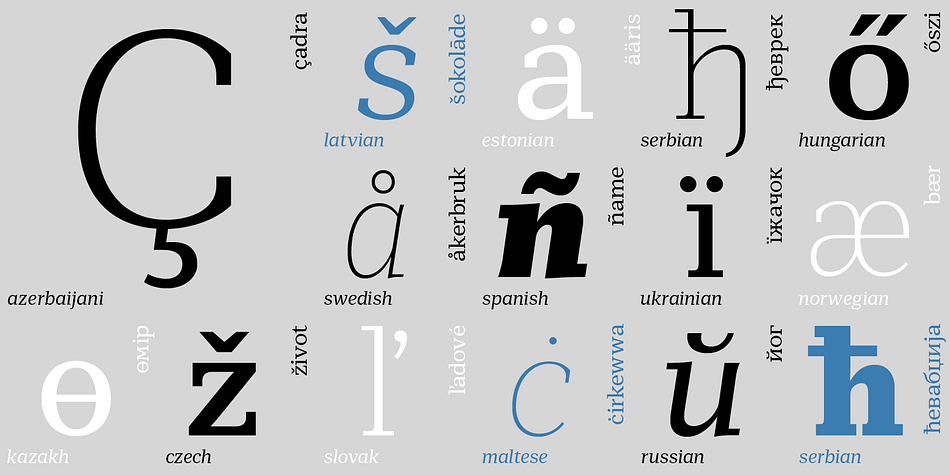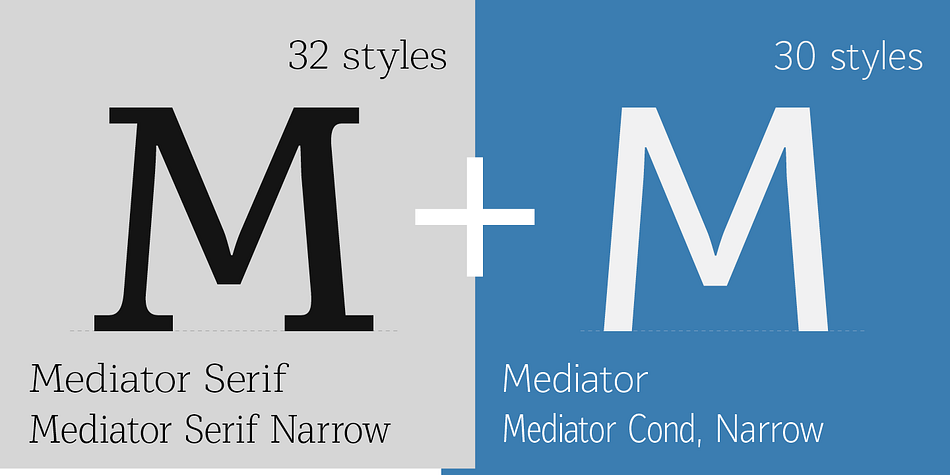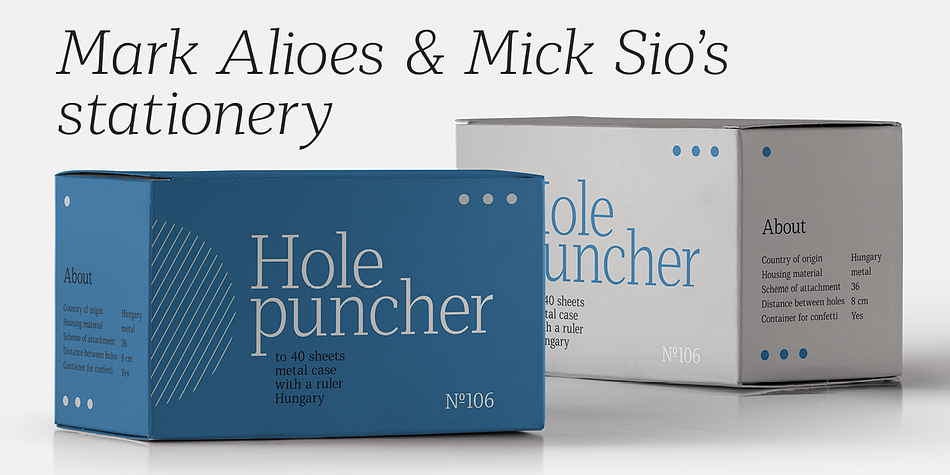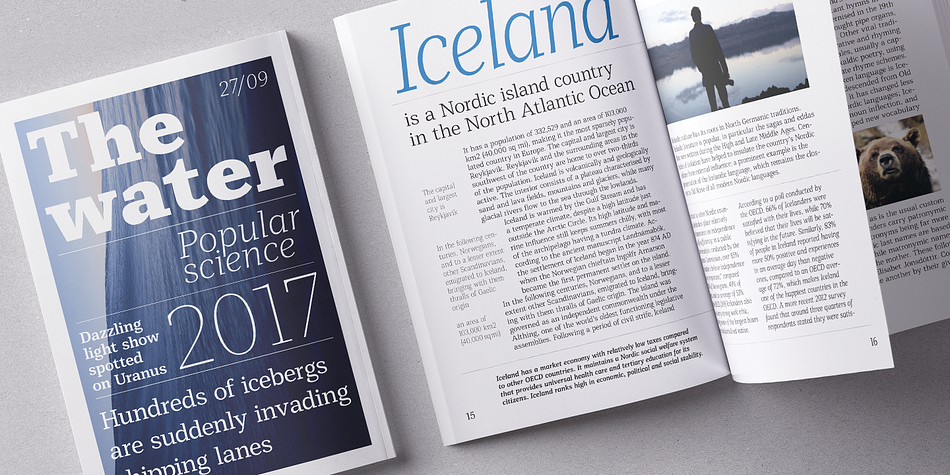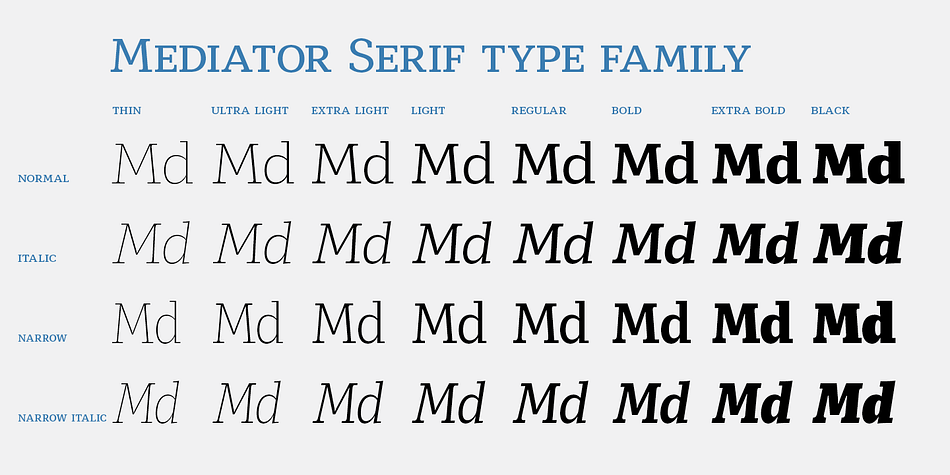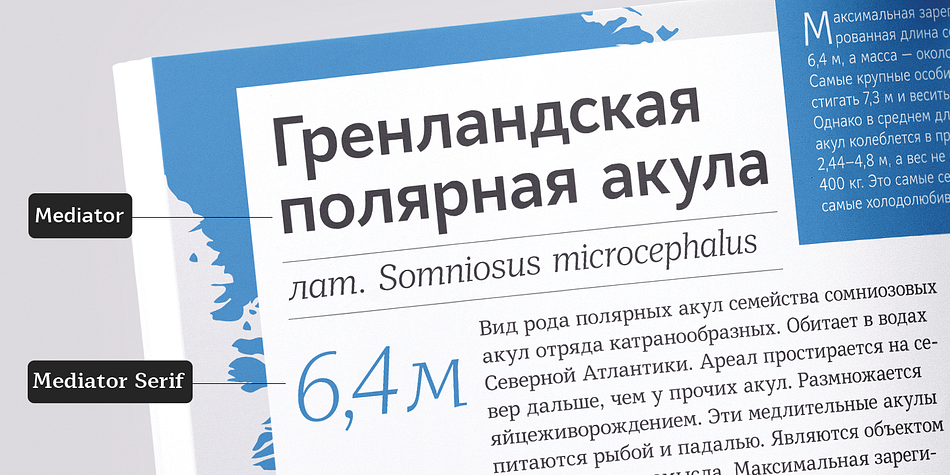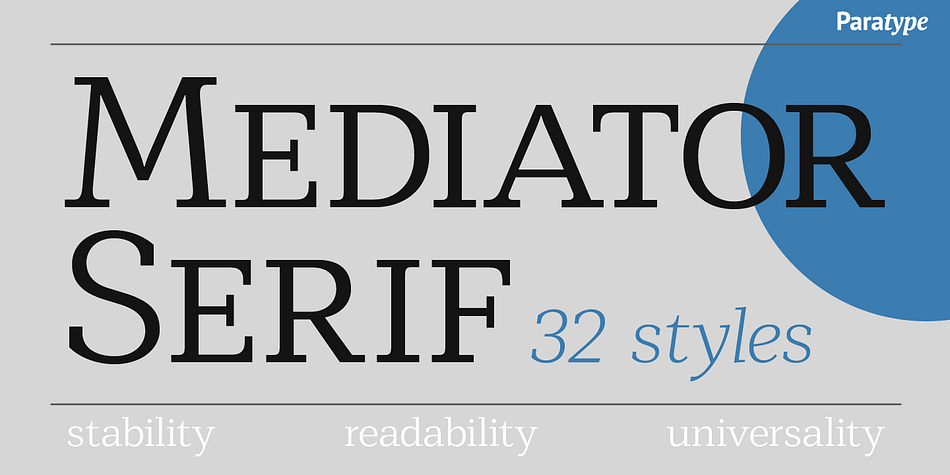
Designed by Alexander Lubovenko and Manvel Shmavonyan, Mediator Serif is a serif font family. This typeface has thirty-two styles and was published by ParaType.
Mediator Serif is a balanced contemporary serif typeface that performs well both in display sizes (like in packaging or branding) and body text (books or periodicals where narrow styles will be extremely useful).
Mediator Serif is a complementary serif face for Mediator Sans.
The family contains 32 fonts in 2 widths: 8 romans with matching italics, of slightly extended proportions, from Thin to Black; and 8 narrow styles with matching italics too. The character set in all faces was expanded to include small caps and old style figures.
The typeface was designed by Manvel Shmavonyan with the participation of Alexander Lubovenko and released by ParaType in 2017.